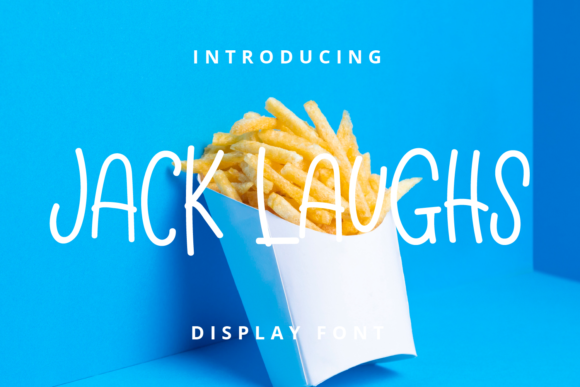
Introducing Jack Laughs Font: The Playful Script Font That Will Ignite Your Sports Designs
In a world where sportsmanship and creativity collide, there's a font that captures the essence of both—Jack Laughs Font. This captivating script font, meticulously crafted by the talented designers at Planetz studio, is a game-changer for sports enthusiasts, graphic artists, and anyone seeking a touch of playful elegance in their designs.
With its natural and unique style, Jack Laughs Font dances across your designs like a graceful athlete, effortlessly adapting to a myriad of sports-related projects. Whether you're creating posters for upcoming matches, designing eye-catching merchandise, or crafting social media graphics that inspire and engage, Jack Laughs Font is your ultimate typography partner.
Beyond its athletic charm, Jack Laughs Font possesses an undeniable versatility that extends far beyond the realm of sports. Its whimsical strokes and charming personality lend themselves beautifully to a wide range of design projects, from invitations and greeting cards to branding and packaging. Unleash your creativity and explore the endless possibilities that await with Jack Laughs Font—the font that makes every design a playful celebration.
- A distinctive script font brimming with character and personality
- Perfectly suited for sports-themed designs, adding a touch of playful elegance
- Incredibly versatile, extending its charm to invitations, cards, branding, and more
- Carefully crafted by Planetz studio, renowned for their exceptional font designs
- Available in a range of weights and styles to suit your unique design vision
Ignite Your Designs with Jack Laughs Font:
- Elevate your sports-related designs to new heights with a font that exudes energy and dynamism
- Create eye-catching posters, merchandise, and social media graphics that capture the attention of sports fans everywhere
- Inject a playful touch into your branding and packaging, leaving a lasting impression on your customers
- Personalize invitations, greeting cards, and other special communications with a font that radiates warmth and cheer
- Explore the boundless creative possibilities and let Jack Laughs Font ignite your imagination